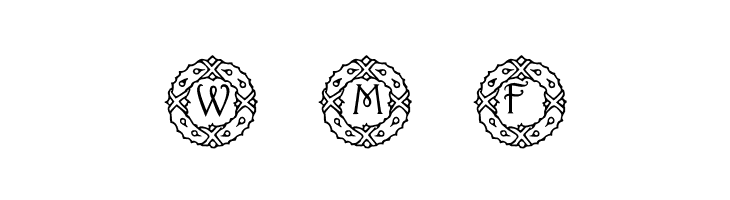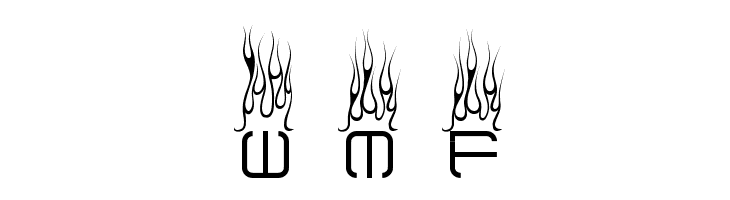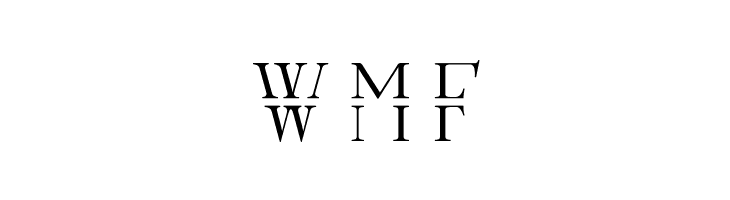
A playful, vampire-themed decorative font with bold, sans-serif letters encased in cartoonish vampire figures.
A geometric, precise Latin capital font with classical design elements.
An ornate, framed serif font with a vintage and decorative style.
An ornate, decorative font with bold characters enclosed in swirling frames.
A decorative serif font with map-like details and medium contrast, ideal for creative projects.
A playful, decorative font with outlined letters and dandelion illustrations.
A decorative serif font with characters enclosed in circular, typewriter-style keys.
A bold, geometric font with expanded width and rounded corners, perfect for modern headlines.
An ornate, Gothic-inspired decorative font with intricate square frames.
An ornate and decorative font with floral and vine motifs, ideal for historical themes.
A decorative font inspired by the Chinese Zodiac, featuring intricate animal designs within circular forms.
A modern, artistic font with horizontally split characters and bold strokes.
Decorative zodiac symbols with intricate illustrations.
A bold, decorative font with characters enclosed in starburst shapes, perfect for impactful designs.
A bold, gothic-style font with jagged circular outlines for each character.
Ornate initials with woodland-themed borders, evoking a vintage, storybook feel.
A bold, sans-serif font with characters enclosed in square keycap-like frames.
A decorative font featuring artistic zodiac symbols.
A decorative, ornate font with a festive, vintage style.
A decorative font with blackletter-style letters framed in intricate patterns.